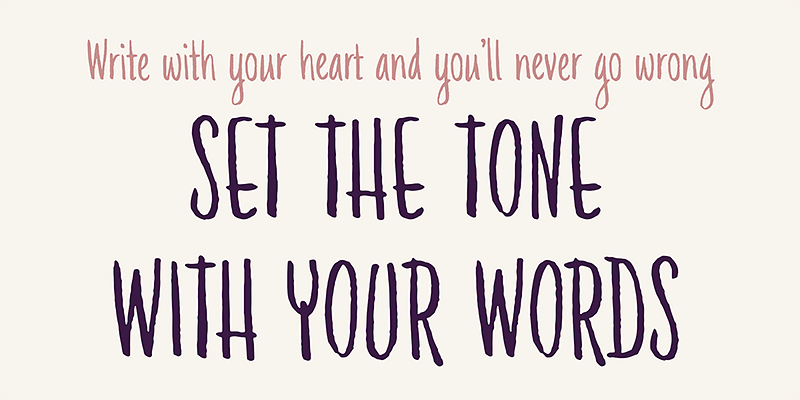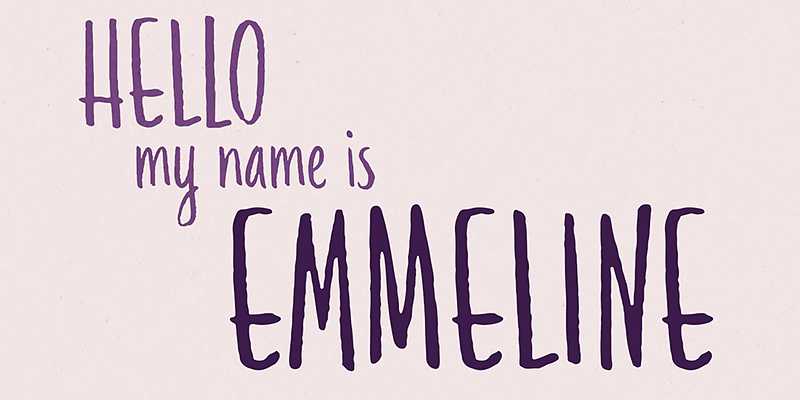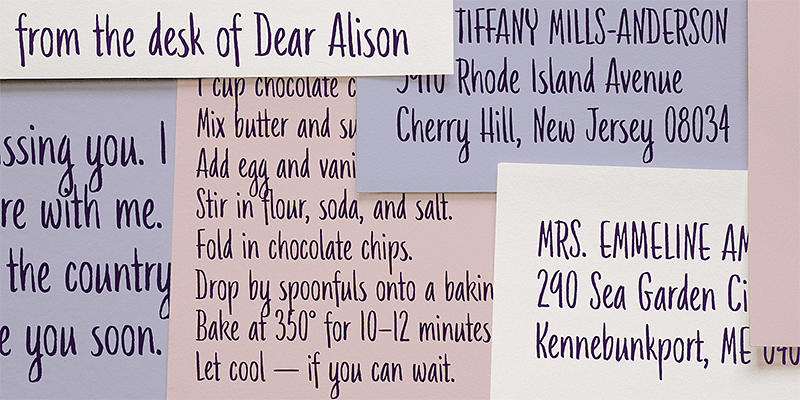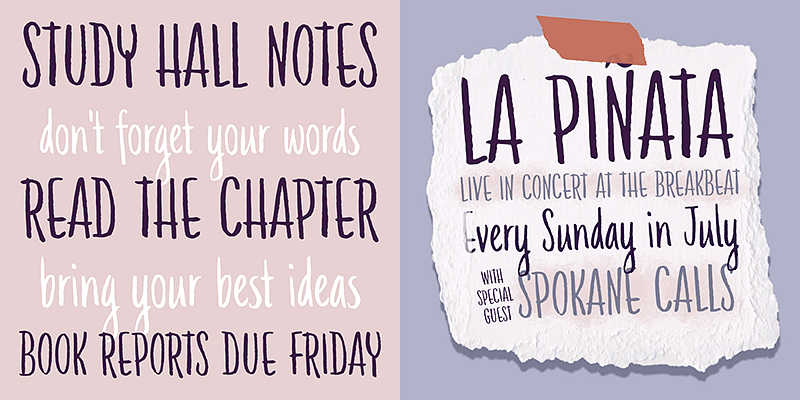
Emmeline is a natural handwritten typeface rooted in memory, correspondence, and the quiet emotion carried by personal letters.
The design was inspired by a bundle of handwritten letters from my younger sister during her college years. Seeing that handwriting again brought back an unexpected flood of memory — a reminder that letterforms can preserve a moment long after the paper has been folded away.
Emmeline keeps that feeling intact. Its tall, expressive forms, gentle inconsistencies, and casual rhythm give it warmth without losing clarity. It feels personal and handmade, but still composed enough for real design use.
OpenType ligature features automatically alternate select characters as you type, helping repeated letters feel more natural and less mechanical. This gives Emmeline a more authentic handwritten texture in words, notes, headlines, and short passages.
Use Emmeline for stationery, greeting cards, journaling projects, classroom materials, packaging, social graphics, personal branding, quotes, and designs that need sincerity over polish.